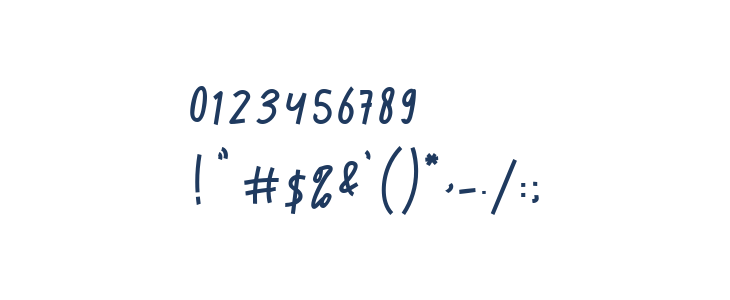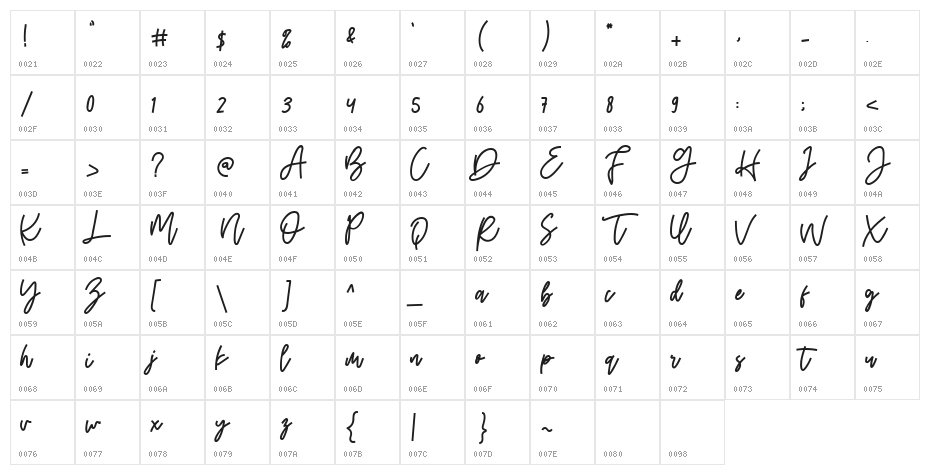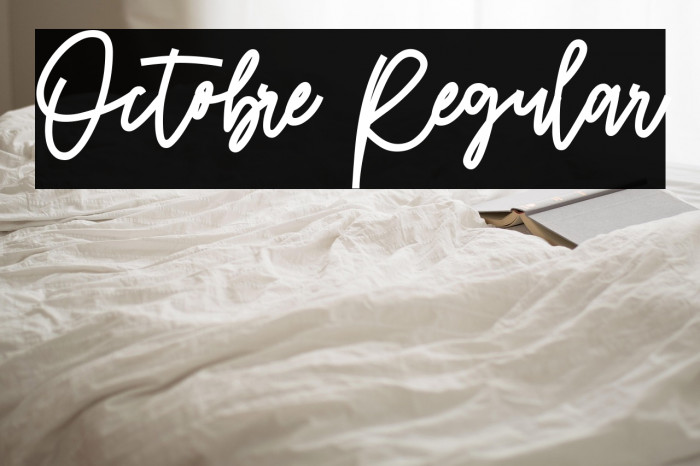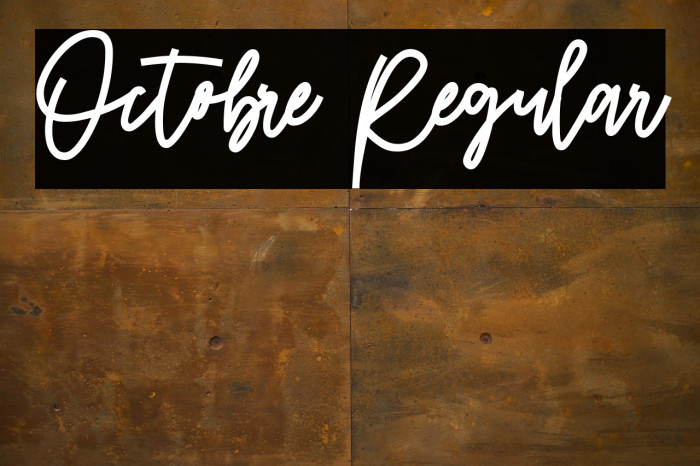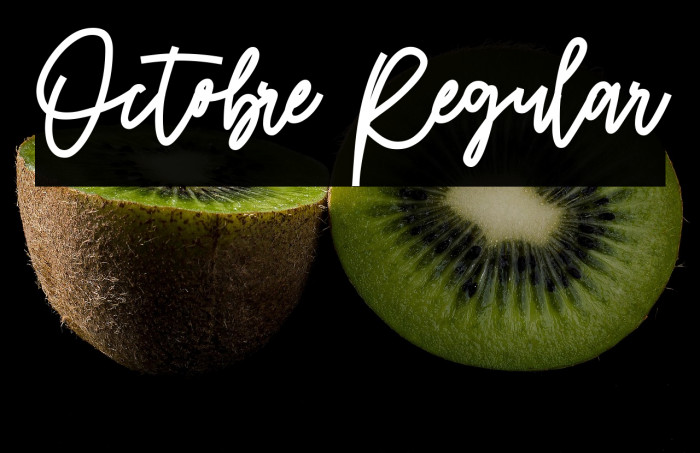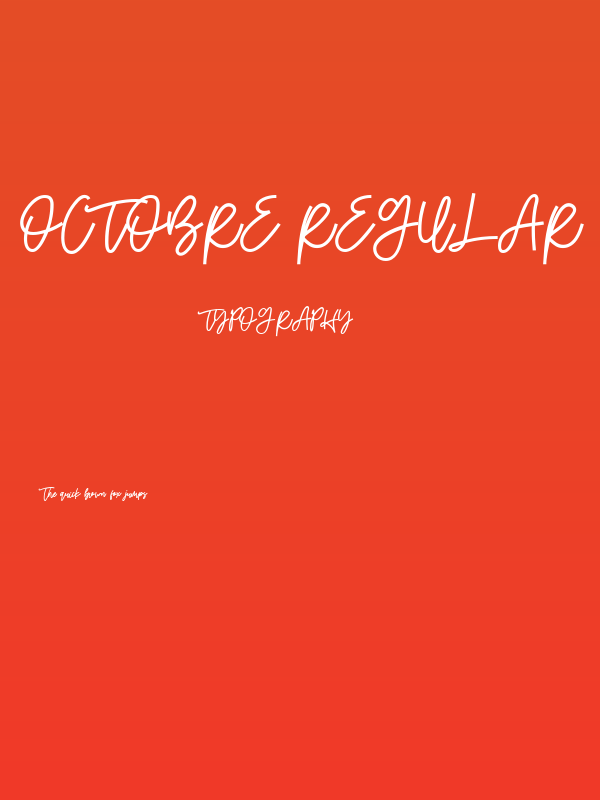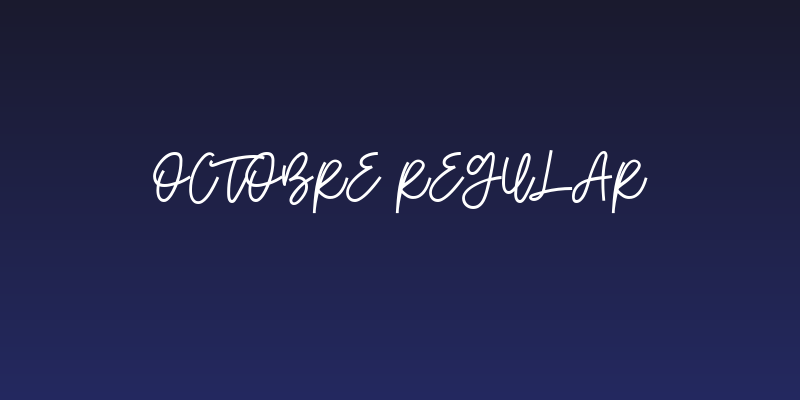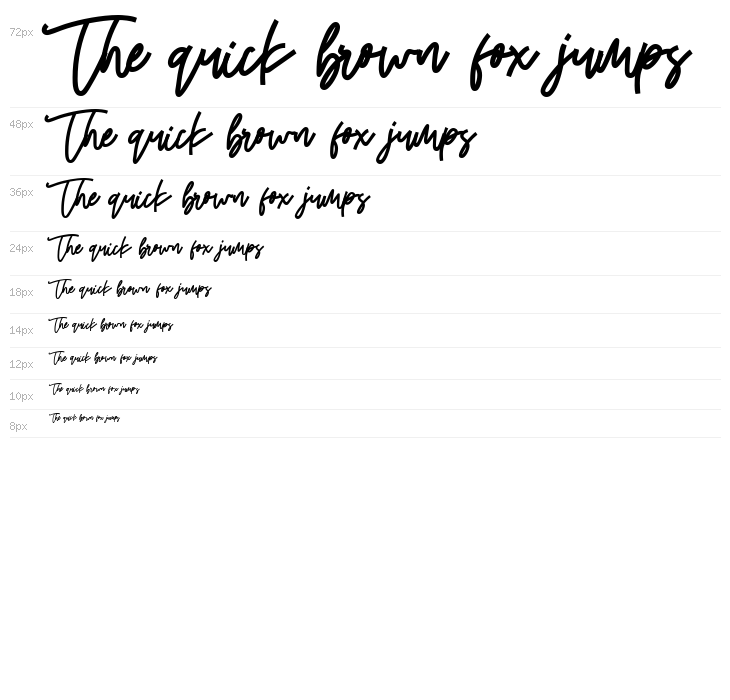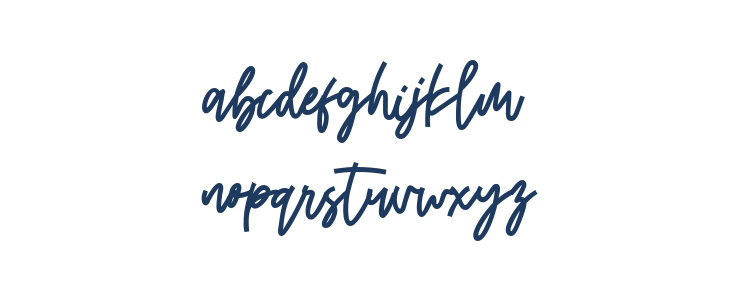
Octobre Regular Font
Octobre Regular Description
This font features a lively and dynamic handwritten style, characterized by its fluid and connected letterforms. The uppercase letters exhibit a playful yet elegant flair, with smooth curves and a consistent stroke width that adds to its legibility. The lowercase letters maintain a cohesive flow, enhancing the handwritten aesthetic. Numbers and special characters are crafted with the same attention to detail, ensuring uniformity across all glyphs. The overall appearance is both modern and approachable, making it suitable for a variety of creative applications.